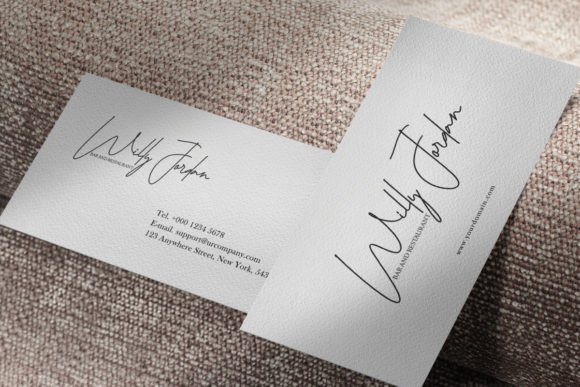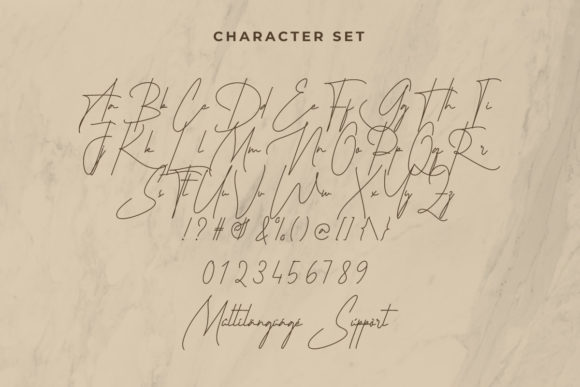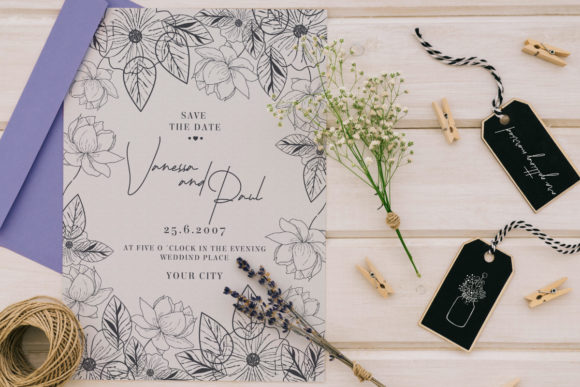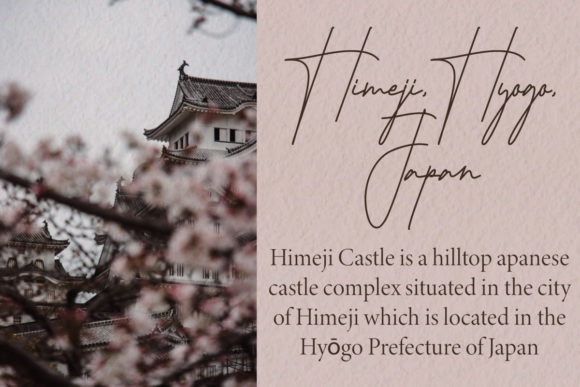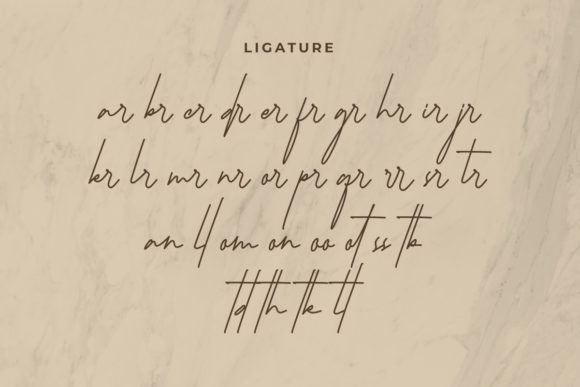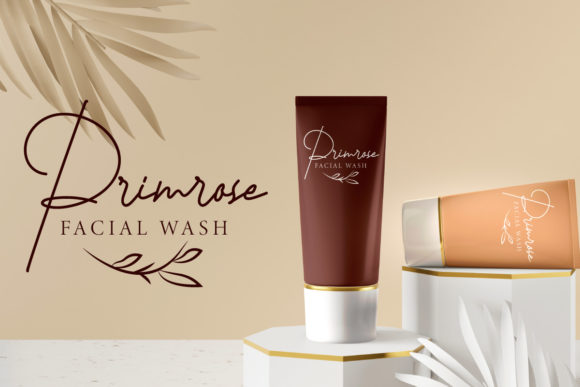
Introduction to Salisbury Font
As designers, we’ve all been there – staring at a blank canvas, trying to bring our creative vision to life. But sometimes, all it takes is the right font to spark inspiration. For me, that moment came when I stumbled upon the beautiful Salisbury Font. Its elegant, cursive script seemed to dance across the page, and I knew I had to learn more.
With its PUA-encoded design, the Salisbury Font offers unparalleled flexibility and ease of use. Whether you’re working on a high-quality logo for a client or a personal creative project, this font is sure to elevate your design. And the best part? You can access all the glyphs and swashes with just a few clicks, making it a valuable resource for any designer looking to take their work to the next level.
Key Features of Salisbury Font
- High-quality design resource ideal for creative projects, including graphic design, digital art, and more.
- Salisbury Font offers a transparent background, allowing for seamless integration with various design elements.
- Unique characteristics include a modern, elegant aesthetic and a wide range of stylistic alternatives for added versatility.
Honest Review: Salisbury Font
I recently stumbled upon the Salisbury Font and I must say, it’s been a great addition to my design resources. This font is perfect for any creative project that requires a touch of elegance and sophistication.
- ✨ High-quality design: The Salisbury Font is crafted with precision and attention to detail, making it perfect for printing and digital use.
- ✨ Wide range of uses: From headings to body text, this font is versatile and suitable for various design applications.
However, I do have some limitations to mention:
- ⚠️ Limited character set: The Salisbury Font may not have as extensive a character set as other fonts, which can be a drawback for designers who require a wide range of glyphs.
- ⚠️ Transparency issues: The font’s transparent background may not work well with all design elements, so be sure to test it thoroughly before use.
Overall, I’m impressed with the Salisbury Font’s quality and versatility. While it may have some limitations, it’s a great resource for designers looking for a high-quality font for their creative projects.
The Salisbury Font is ideal for various design projects, including:
- Website headers and footers